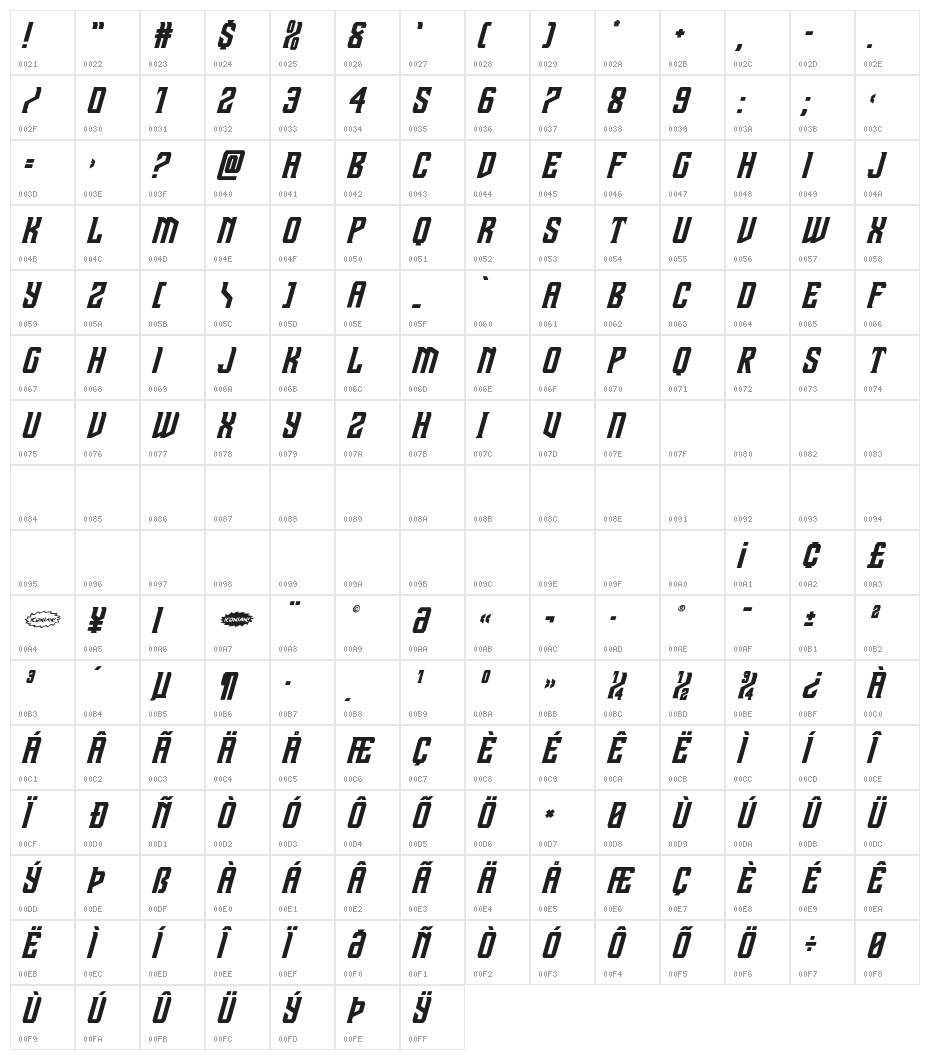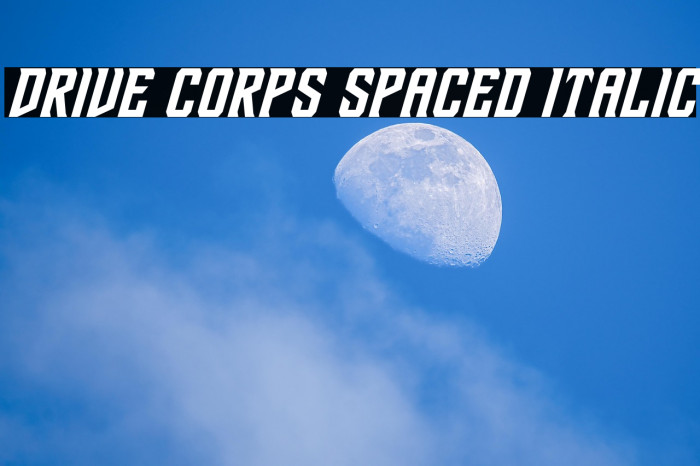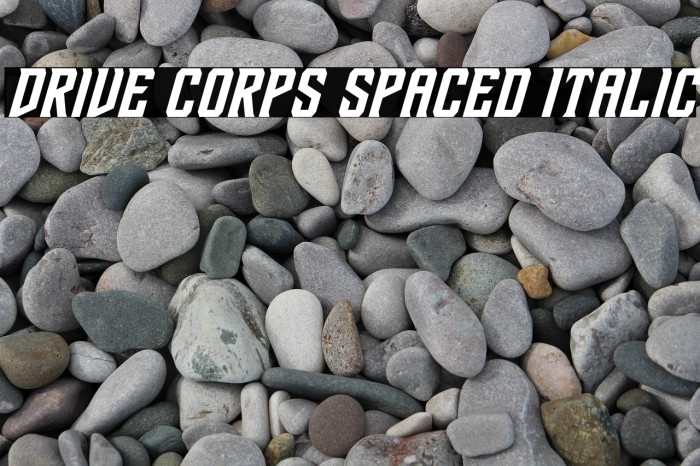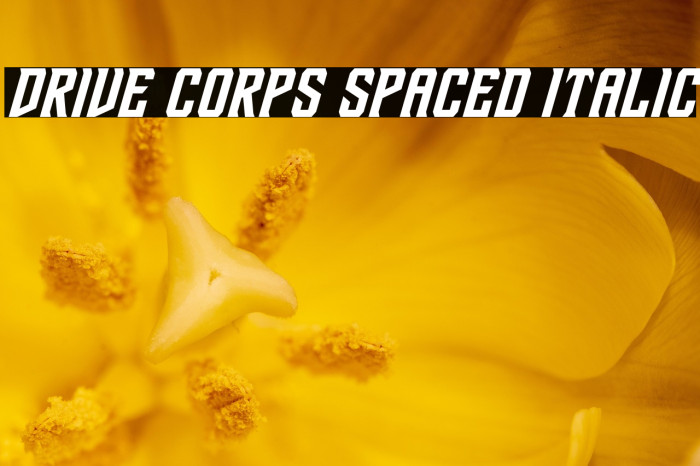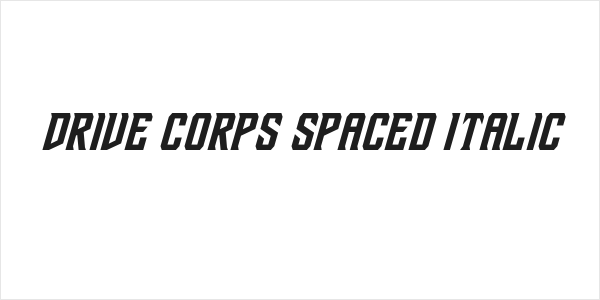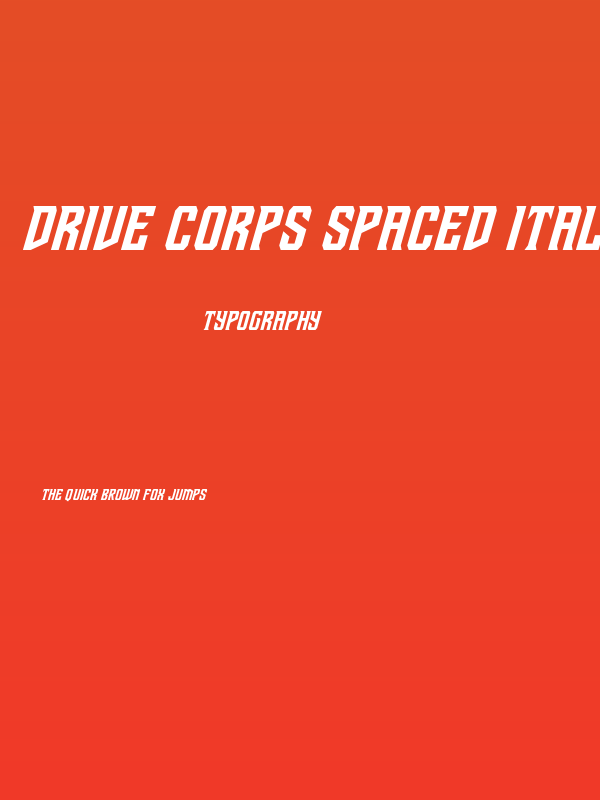
Drive Corps Spaced Italic Font
Drive Corps Spaced Italic Description
This font features a bold and dynamic style with a distinct italic slant, giving it a sense of motion and energy. The characters are designed with sharp angles and clean lines, creating a futuristic and sporty appearance. The uppercase and lowercase letters maintain a consistent weight, contributing to a cohesive look. The numbers and special characters are equally bold, ensuring readability and impact. This font's design is both modern and assertive, making it suitable for projects that require a strong visual presence.
| Proposed Projects | Ideal for sports branding, automotive designs, dynamic posters, and modern advertising. |